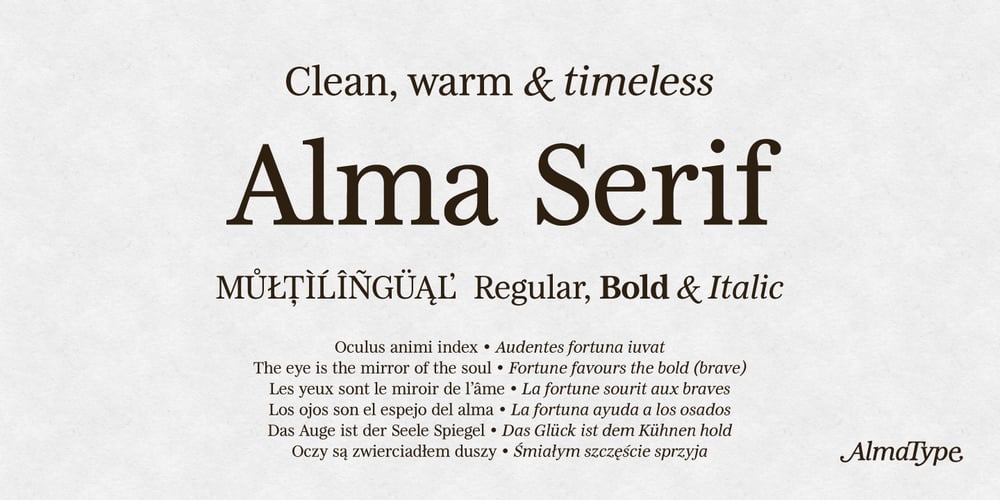
Alma Serif Font Family was designed by Mariusz Zając and published by Alma Type. Alma Serif contains 3 styles and family package options. Alma Serif is a typeface that tries to combine the modern shape of serif magazines such as Times New Roman with the atmosphere of classic typefaces such as Baskerville. I was working on the universality of the typeface, so that it would be suitable for both long papers and books, but also for formatting narrow columns in magazines.